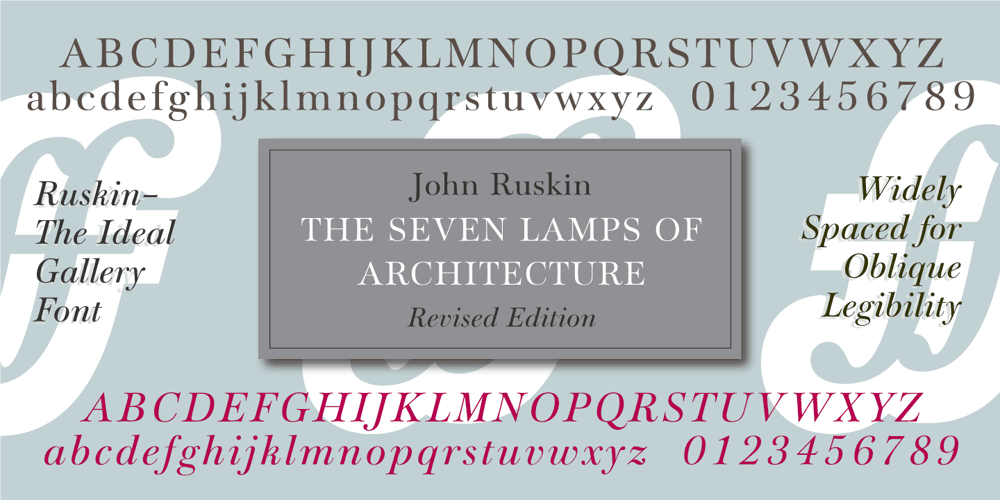
Ruskin
Ruskin font
Ruskin Font Family was designed by Michael Harvey, Andy Benedek and published by Fine Fonts. Ruskin contains 2 styles and family package options. The origin of Ruskin was a commission for Michael Harvey to design a signage font for the Dean Gallery in Edinburgh. The style of the letterforms was to complement the period of the building which was originally an orphanage built in 1839. Only uppercase letters were created at first with the lowercase letters—and other characters necessary for a font—added later. With elegant and slightly extended letterforms, Ruskin fulfilled its rôle well as a signage font. It also functioned extremely well as a general display font. It is particularly suited to item descriptions and placards in galleries and museums which are frequently read from an angle, as well as head-on. The fonts have both proportionally and monospaced numerals.